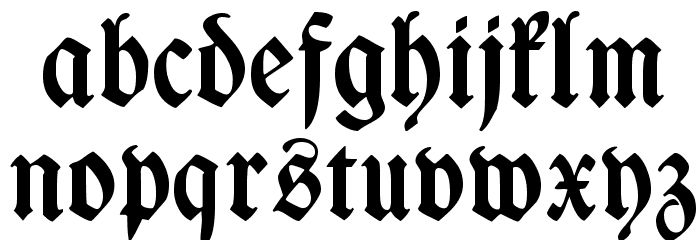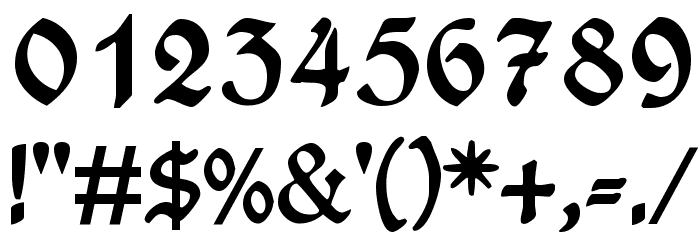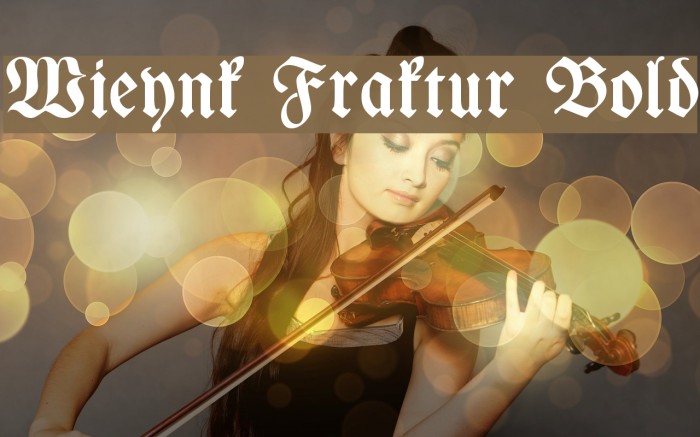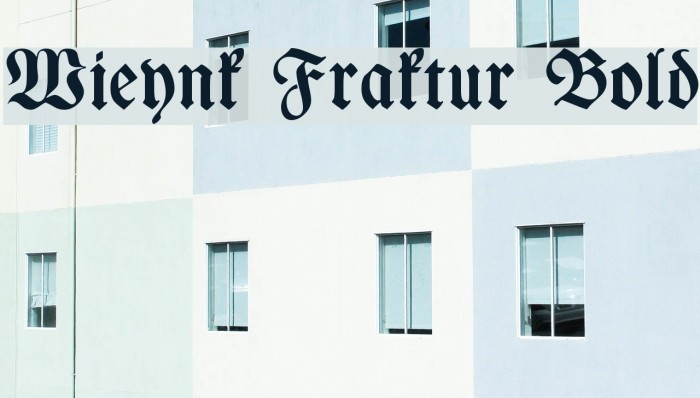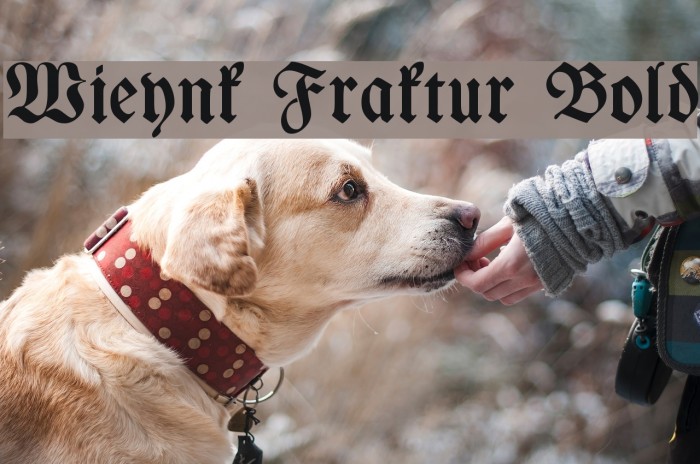
Wieynk Fraktur Bold Font
This font is a bold and striking example of the Blackletter style, characterized by its intricate and angular letterforms. The uppercase letters exhibit a strong presence with sharp, pointed serifs and elaborate curves, while the lowercase letters maintain a consistent flow with distinctive flourishes. The numerals are equally bold, featuring a uniform thickness that complements the overall aesthetic. Special characters are designed with the same attention to detail, enhancing the font's decorative appeal. This font's historical and traditional feel makes it ideal for projects that require a touch of elegance and formality.
A bold Blackletter font with intricate, angular letterforms and decorative appeal.
- Proposed Projects: Ideal for certificates, invitations, branding for luxury products, historical documents, and decorative signage.
- Overall Style: Vintage
- Use Case: Logos, Headlines, Decorative text